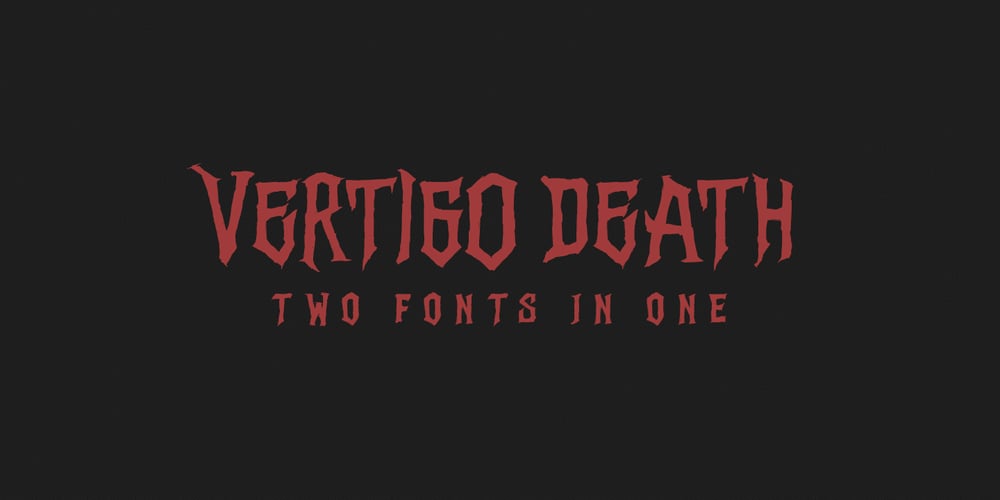
Vertigo Death
Vertigo Death font
Vertigo Death Font Family was designed by Mirco Zuchowski and published by Mirco Zett. Vertigo Death contains 1 styles and family package options. Vertigo Death is a decorative font inspired by the heavy metal and extreme sport culture.